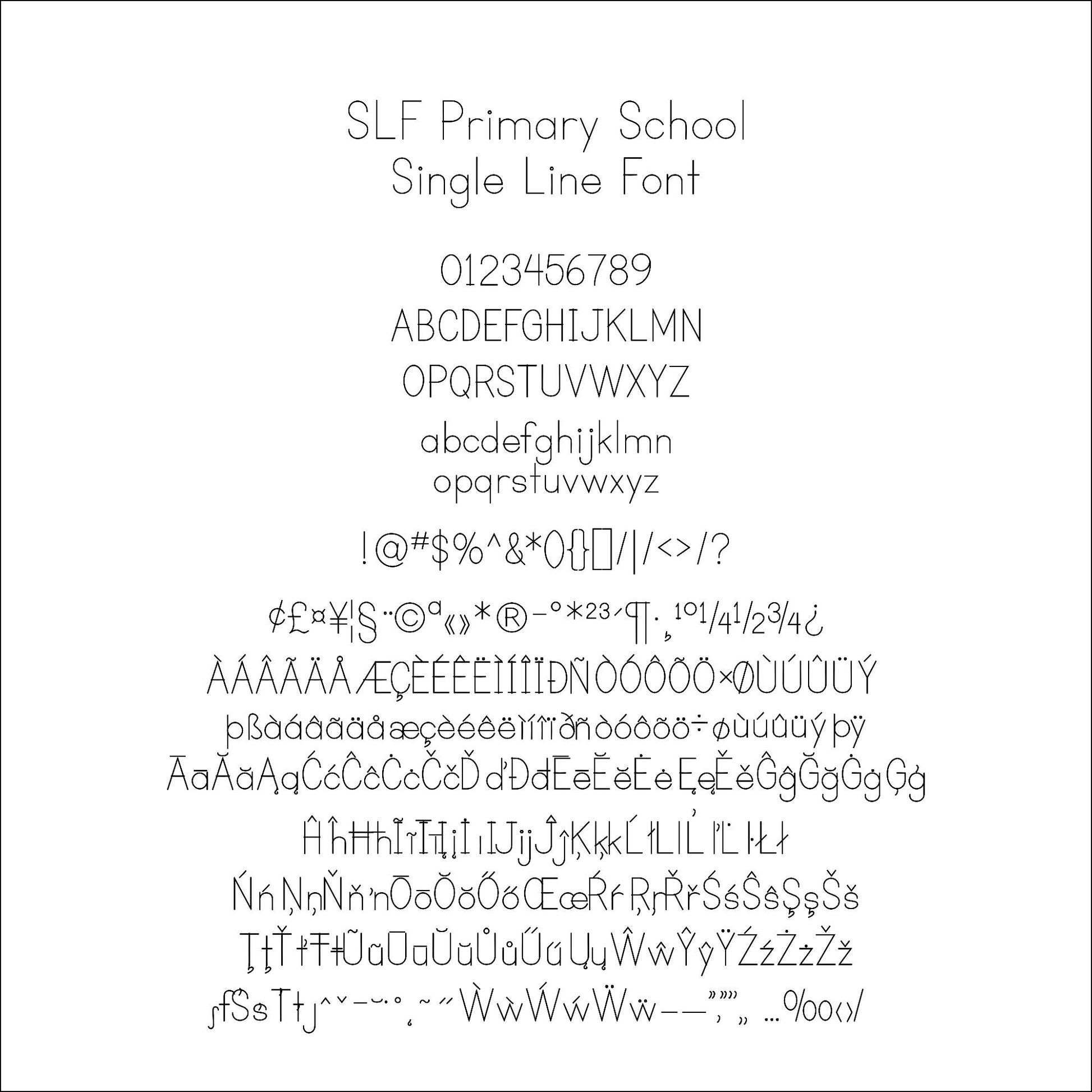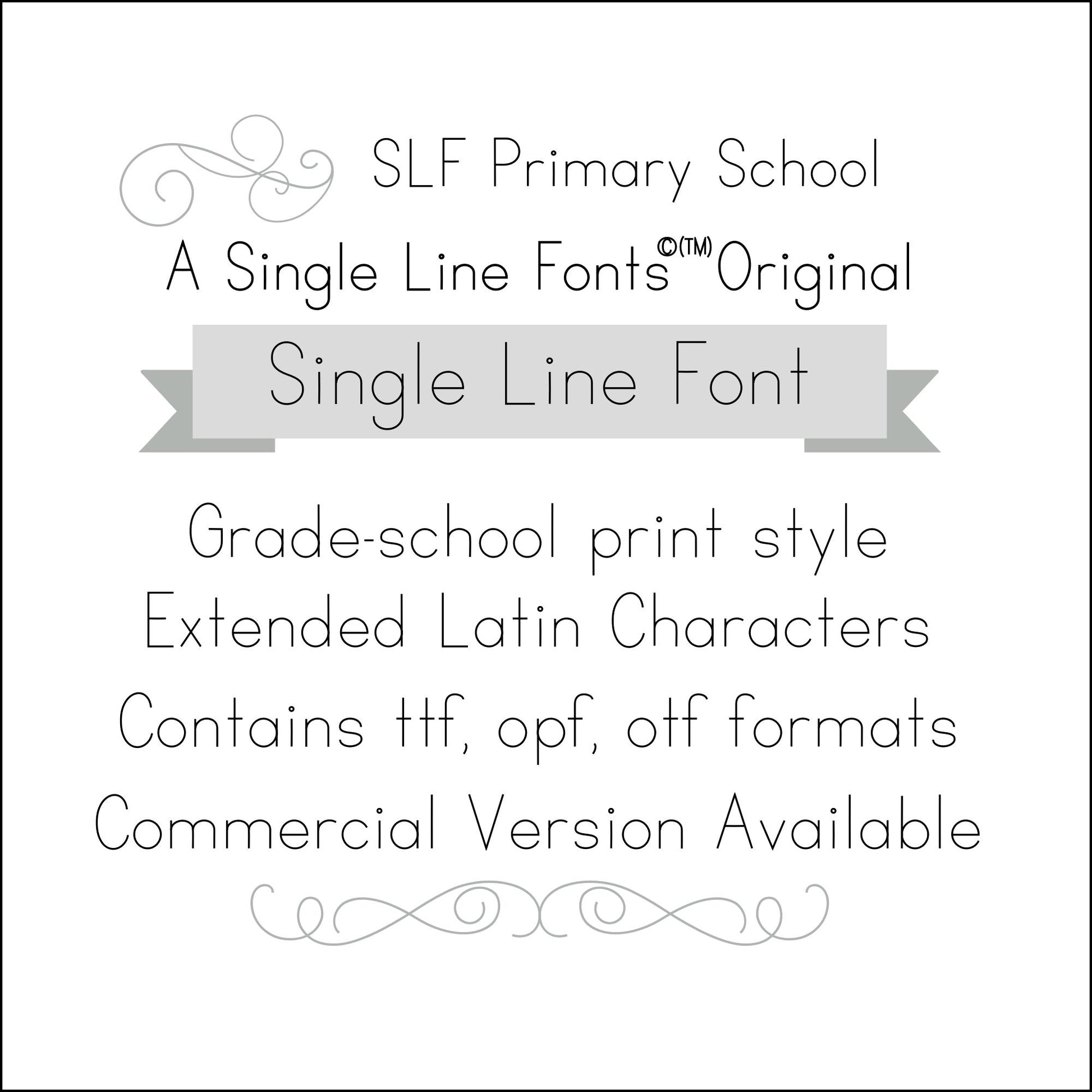
SLF Primary School – Single Line Print Font for Educational & Craft Projects
SLF Primary School is a friendly and highly legible single line print font inspired by classic school lettering. Its clear, simple characters are great for engraving, scoring, sketch pen tools, CNC projects, and crafts where readability and charm matter. Use it for labels, signs, kids’ crafts, educational projects, and personalized creations.
This monoline font includes a complete character set with uppercase and lowercase letters, numbers, punctuation, symbols, and accented characters for multilingual support.
• Educational signage, labels, and kids’ projects